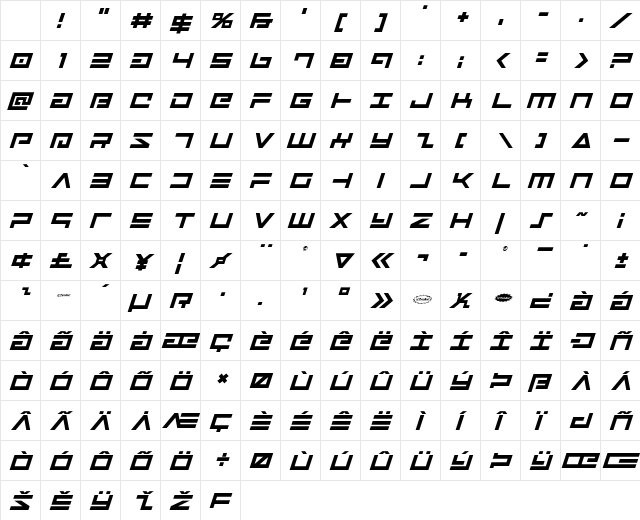
Avenger is a composed and adaptable typeface that performs quietly and consistently across a wide range of design contexts. The slanted form adds forward momentum and visual energy.